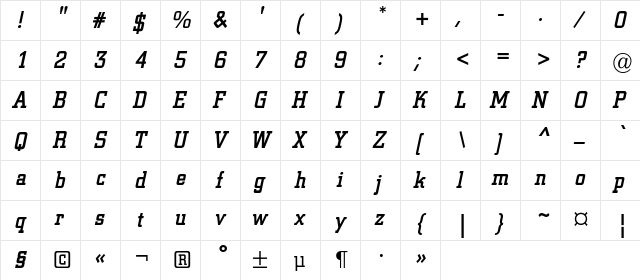
a_CityNova Italic
Design Context for a_CityNova Typeface
a_CityNova offers clean, dependable letterforms without strong stylistic allegiance, making it a practical choice for designers who need flexibility. Its italic angle brings a sense of urgency and motion to the letterforms.
Pro Tip: Try a_CityNova for annotation and caption copy alongside an upright companion — the contrast in angle creates a dynamic but ordered typographic system.